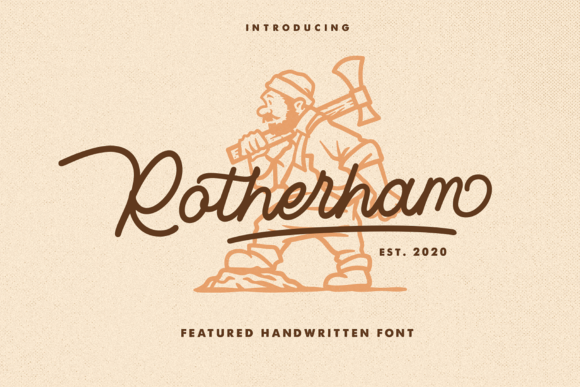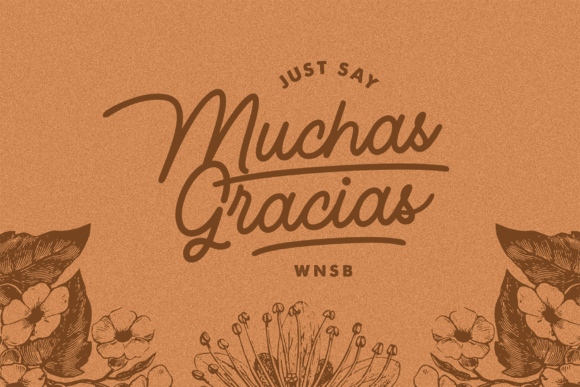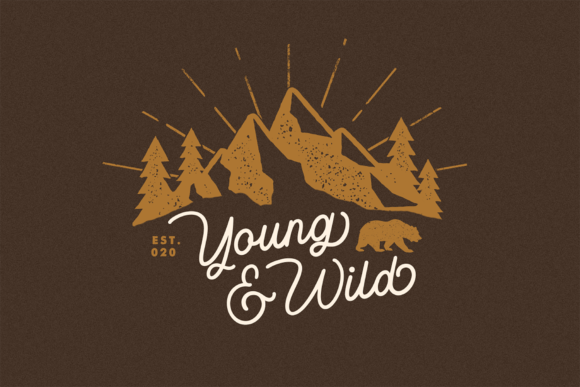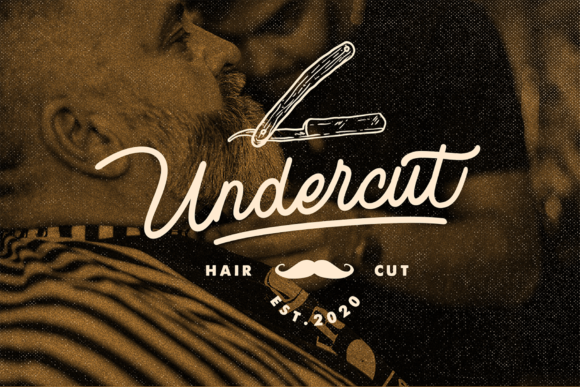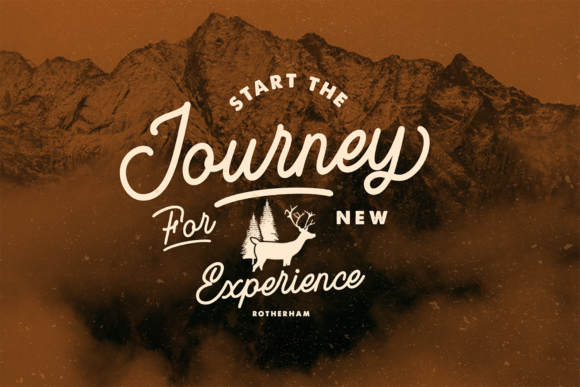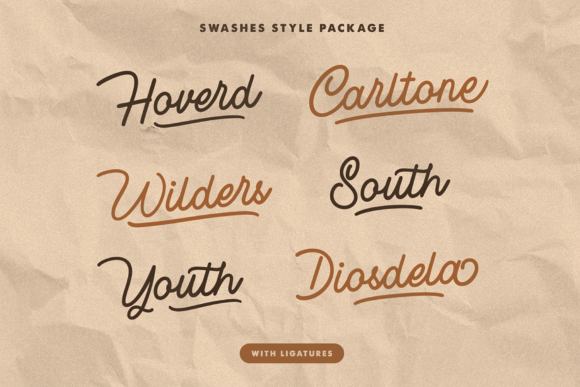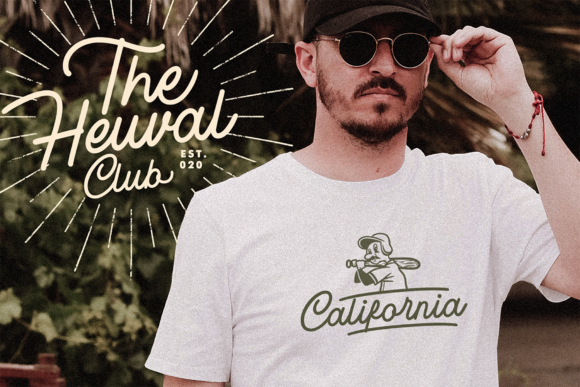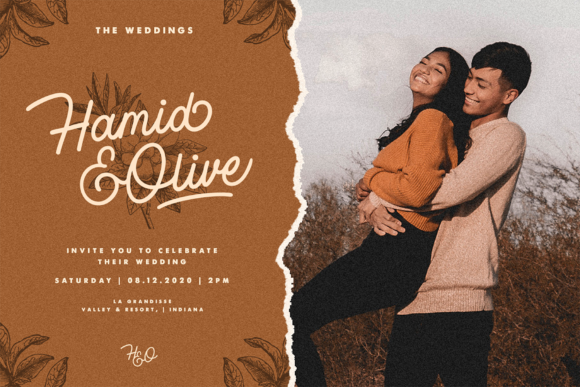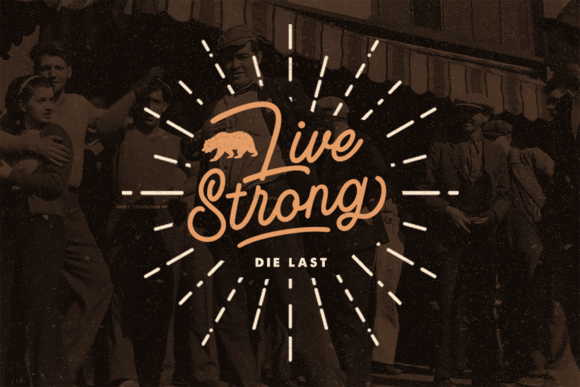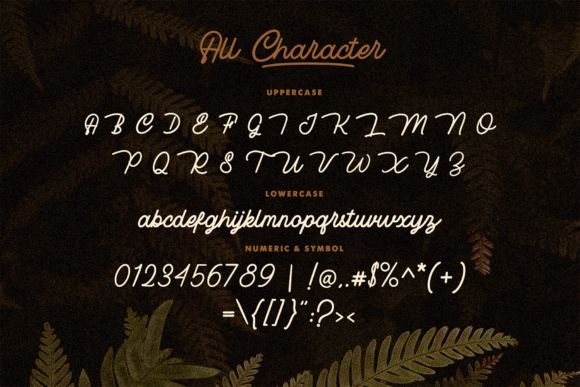
HomeScript FontsRotherham Font Script Fonts Rotherham Font FacebookXPinterestWhatsApp Rotherham Font Poster 2 Rotherham Font Poster 3 Rotherham Font Poster 4 Rotherham Font Poster 5 Rotherham Font Poster 6 Rotherham Font Poster 7 Rotherham Font Poster 8 Rotherham Font Poster 9 Rotherham Font Poster 10 About Rotherham Font Rotherham is a classy monoline script with dynamic swashes. Use it to make any design project stand out! DOWNLOAD ON CREATIVE FABRICAThis font is sold and delivered by Creative Fabrica. Font Canyon may earn a commission if you buy through this link. People also explored Handmade Font The Blues Font Saverous Font Cup Cake Font Roling Stone Font Bostya Font Shamrock Wishes Font Neville Font Little Snowman Story Font 340 0 TagsRotherham Font Previous articleRomantic Chicago FontNext articleAbustha Font LEAVE A REPLY Cancel reply Comment: Please enter your comment! Name:* Please enter your name here Email:* You have entered an incorrect email address! Please enter your email address here Website: Save my name, email, and website in this browser for the next time I comment. Personal Use Free Bosque Font Personal Use Free Read more about this font Tomatoes Personal Use Free Read more about this font Mueband Personal Use Free Read more about this font Harshita Personal Use Free Read more about this font BLOG To increase your work productivity, choose the most readable fonts. In today's fast-paced work environment, where digital communication and information consumption are integral to our daily routines, the choice of fonts can significantly impact... How to Install and Use Fonts on Windows, macOS, and Web Projects Elegant Wedding Invitation Fonts – Handwritten & Script Fonts Top 7 Google Fonts Alternatives for Faster and Privacy-Friendly Web Design (2025)